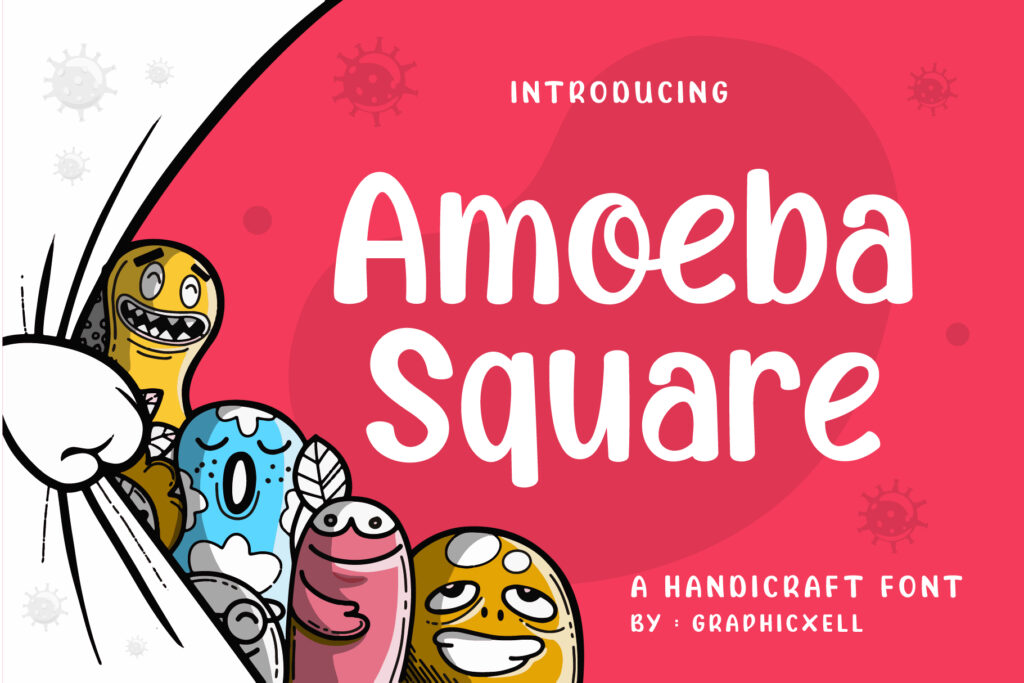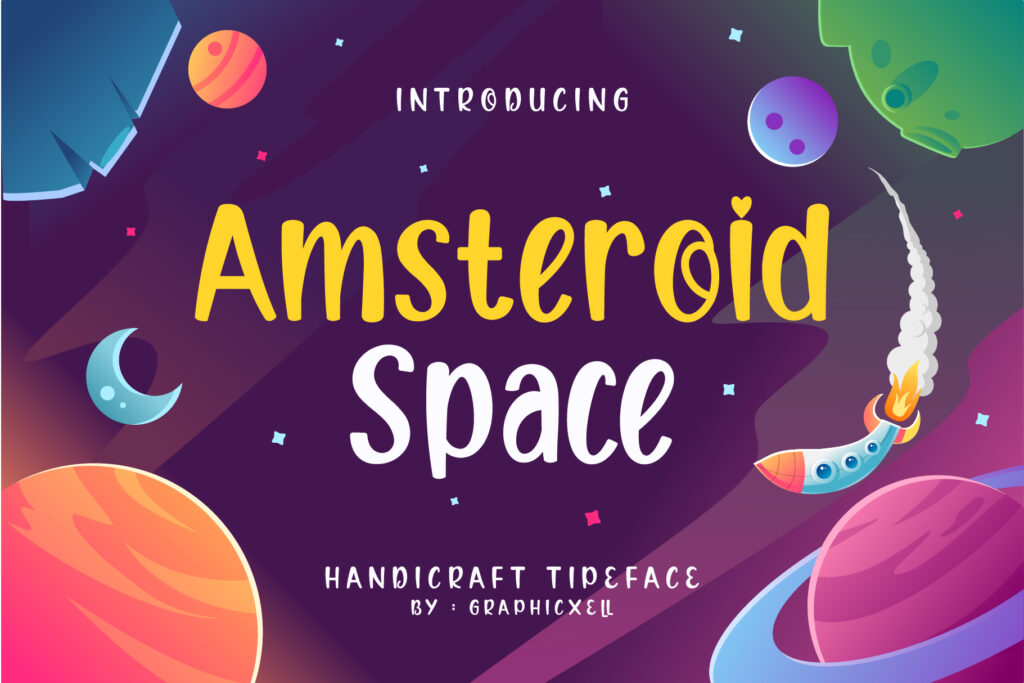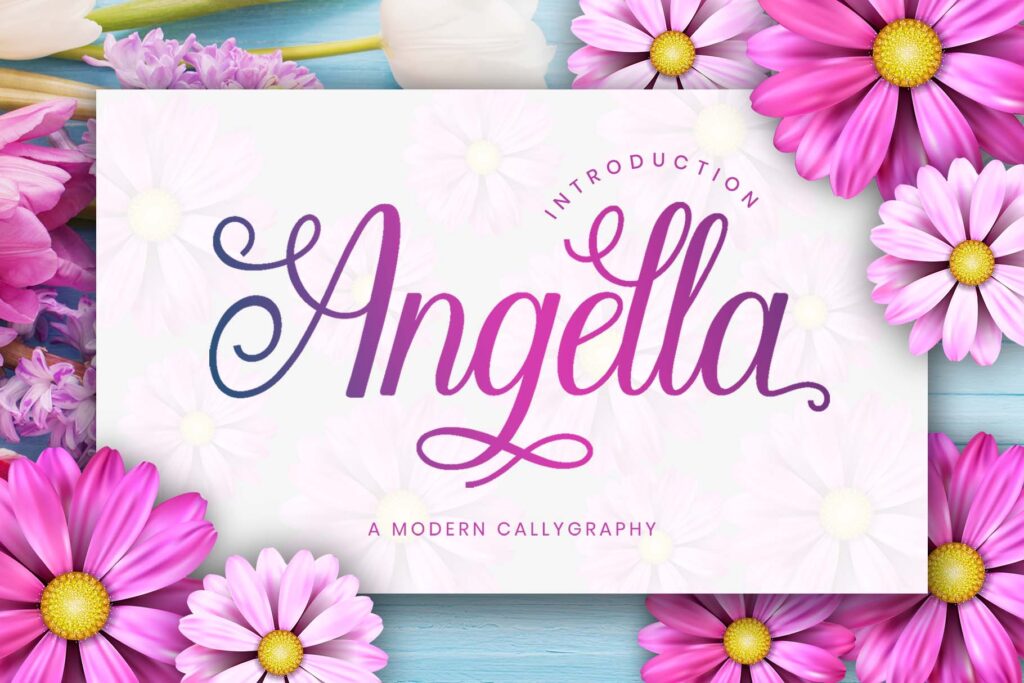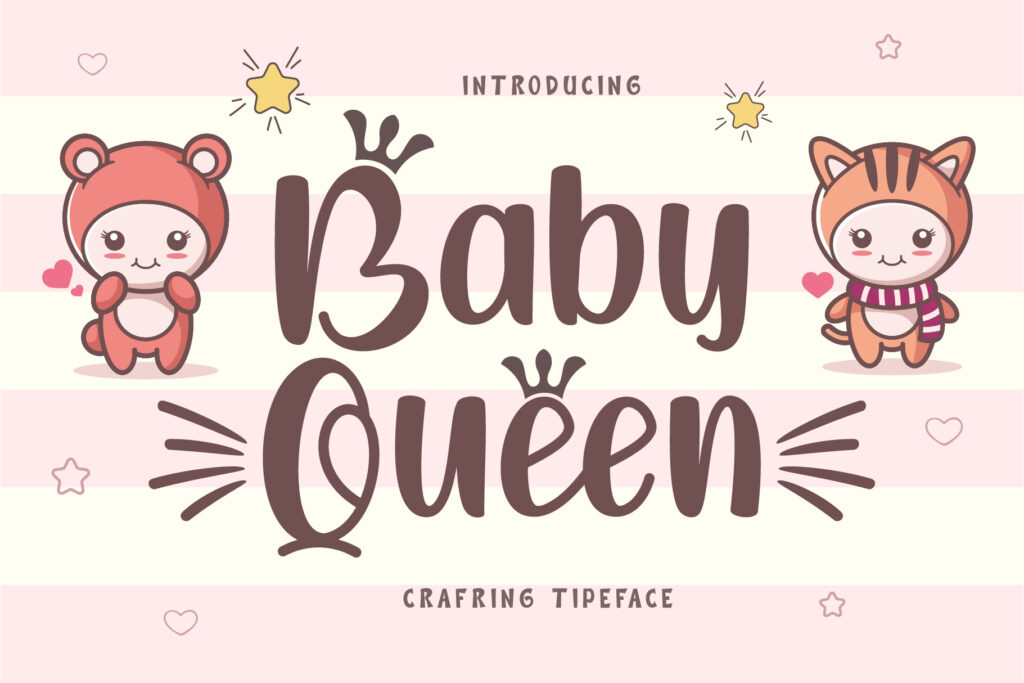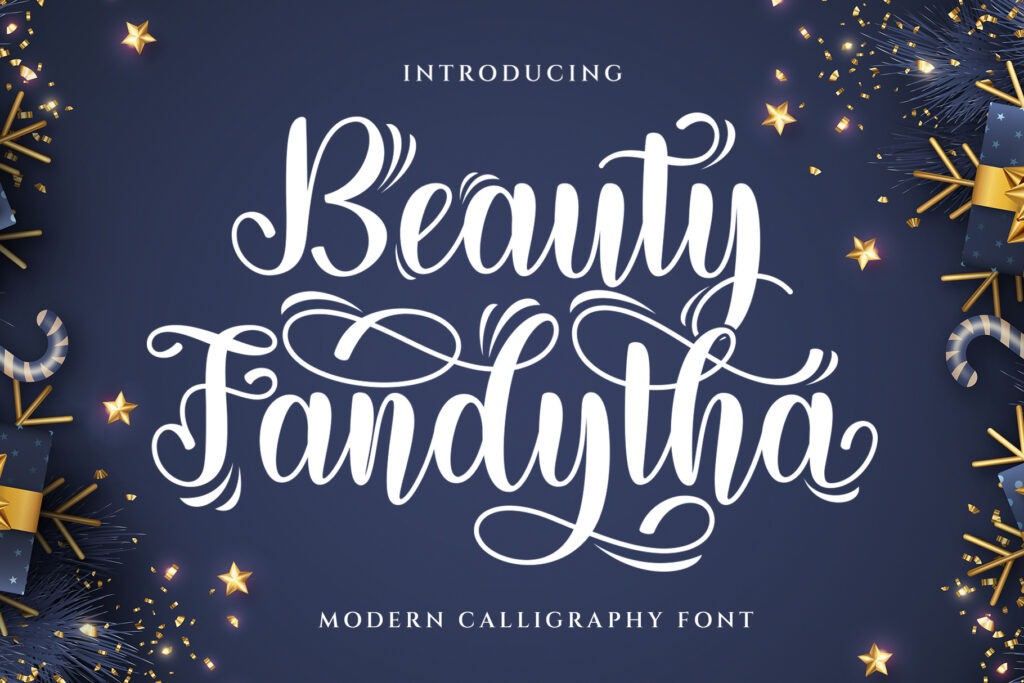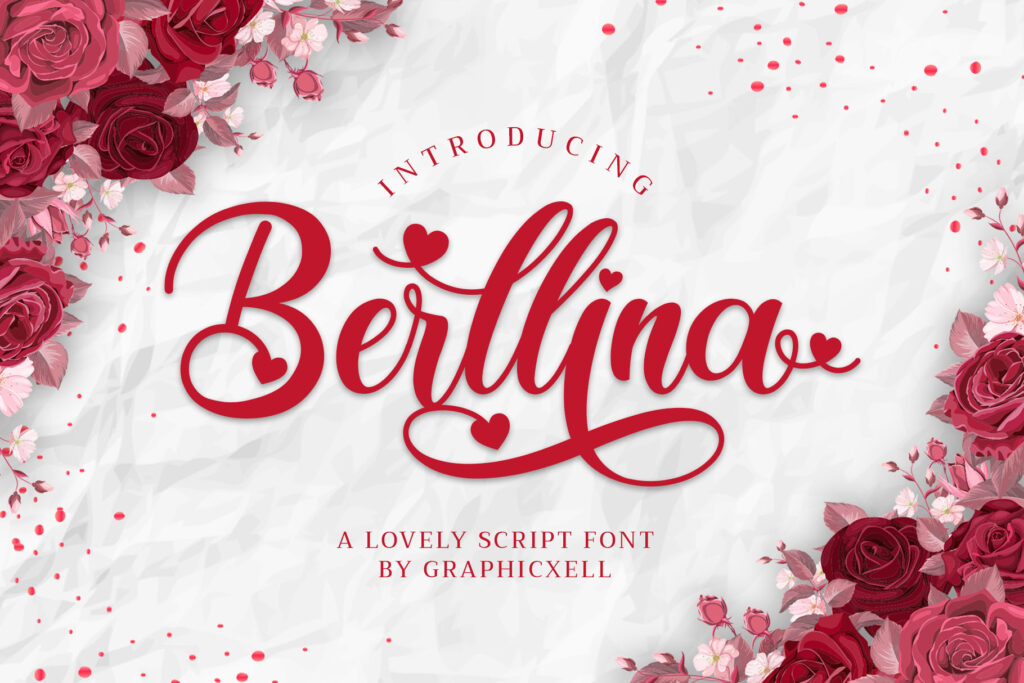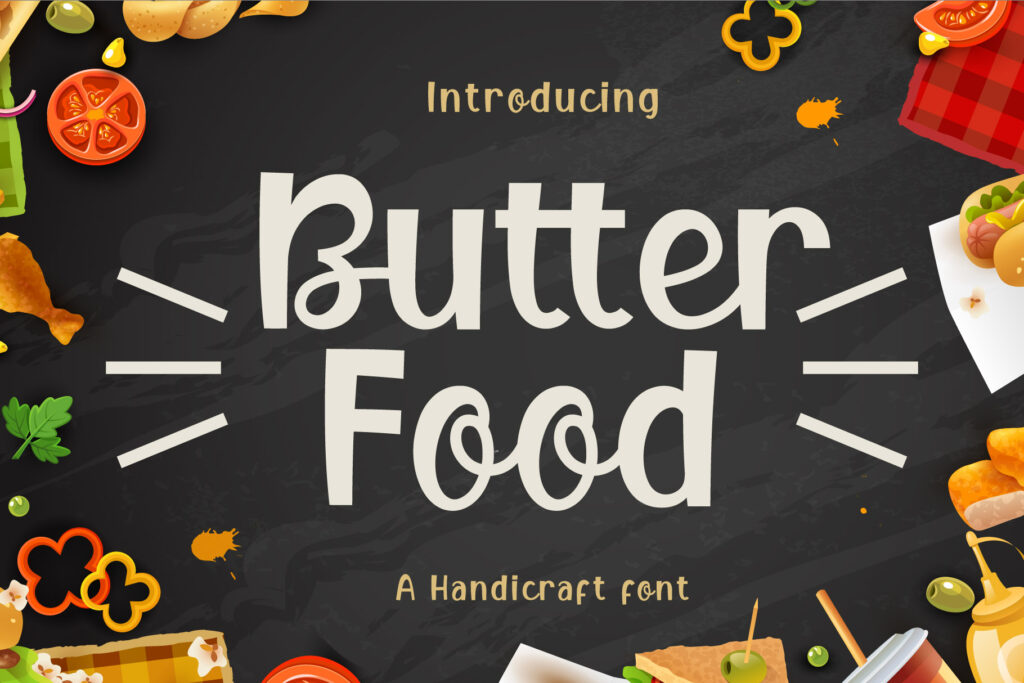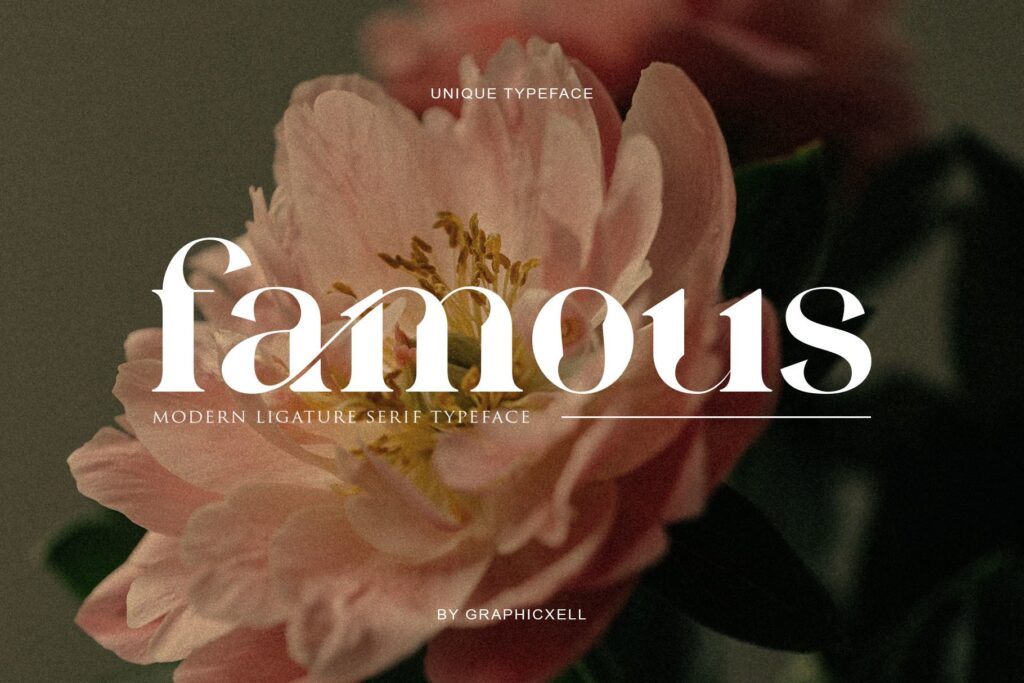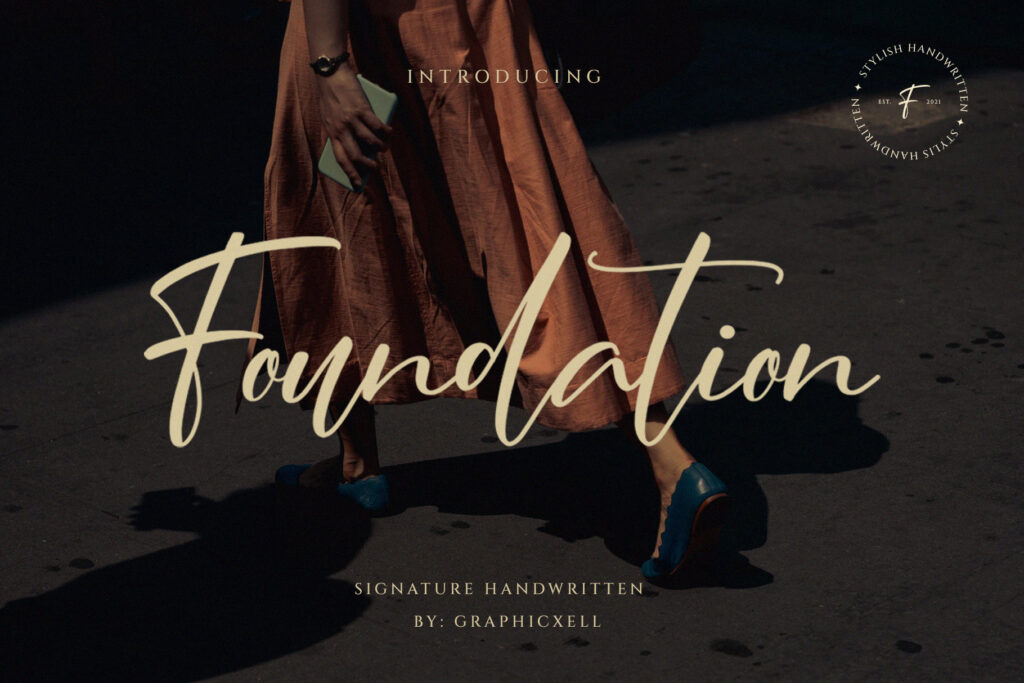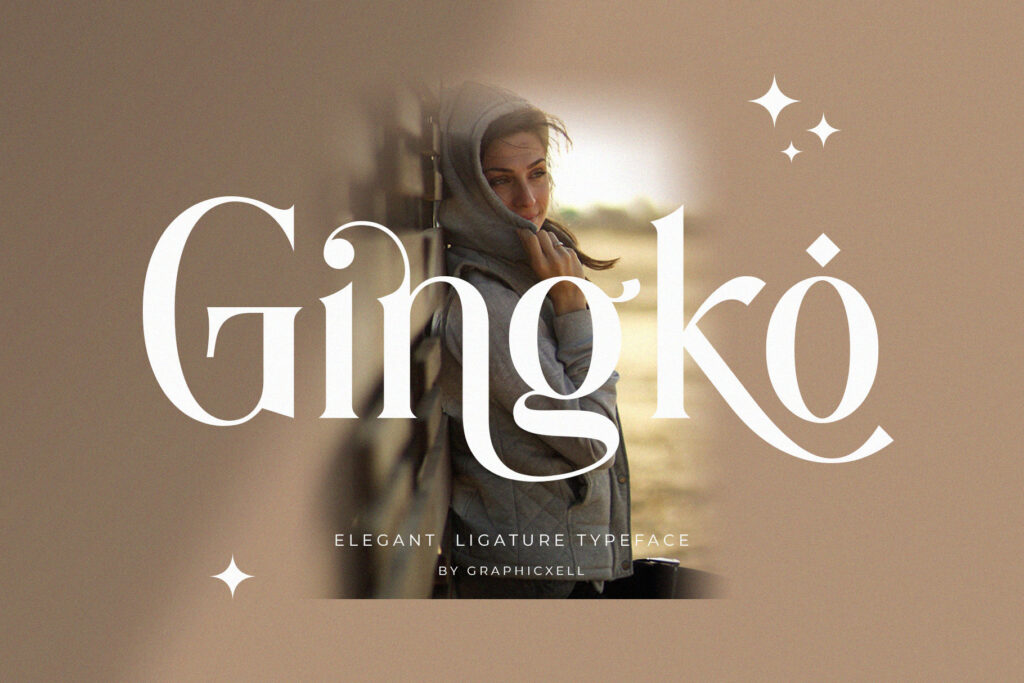
This amazing collection includes script, display, and decorative fonts. Add these fonts to your library and use them in your upcoming projects! Create outstanding logos, name tags, greeting cards, posters, book covers, t-shirt print designs, and much more!